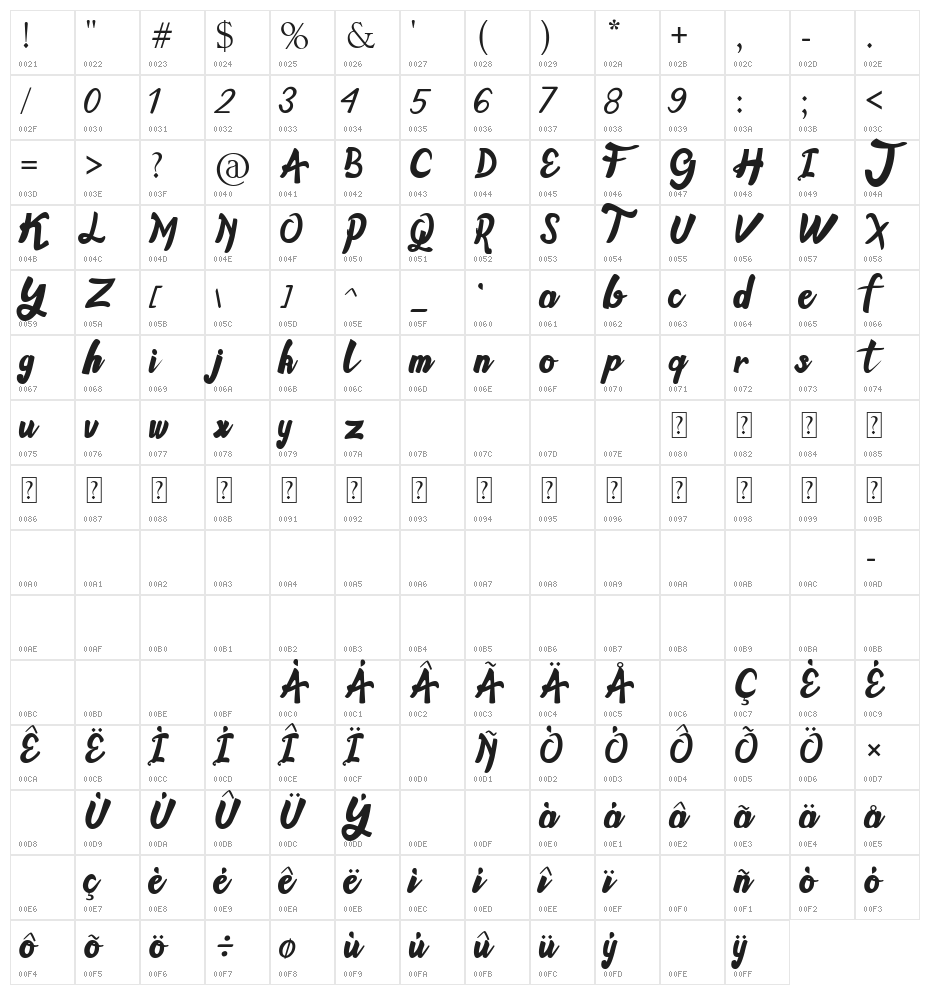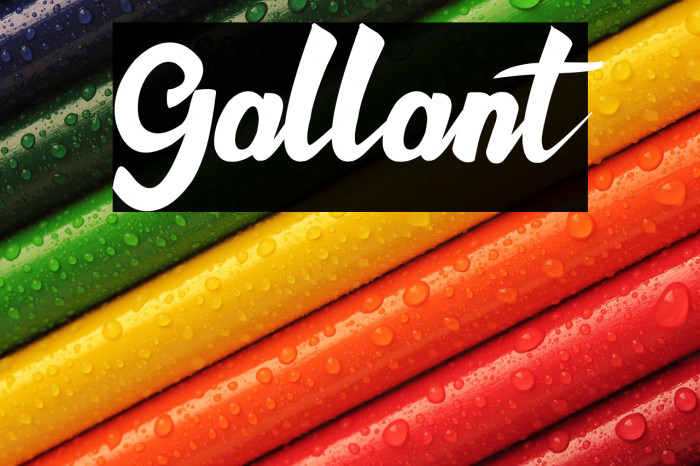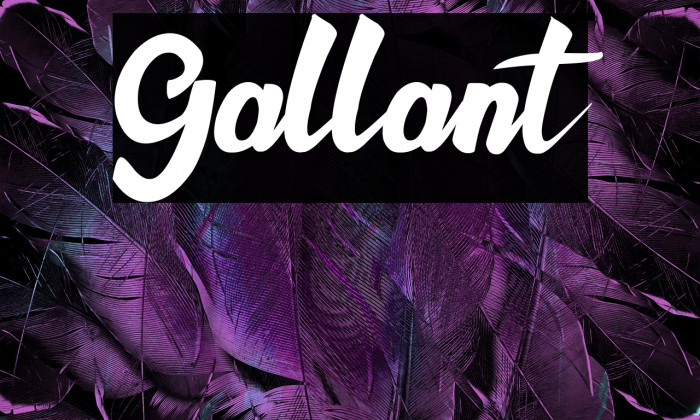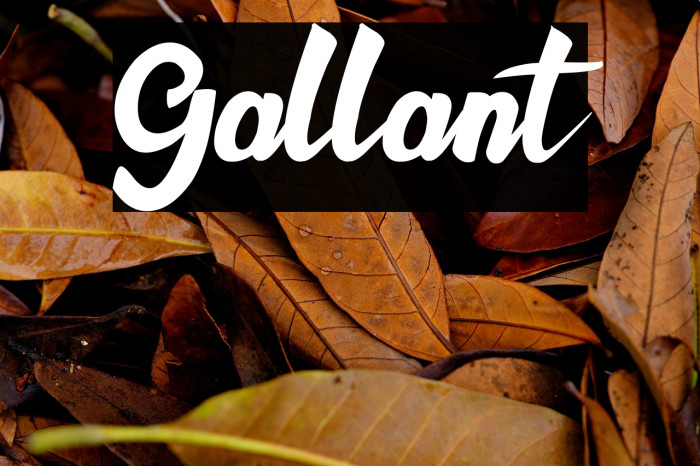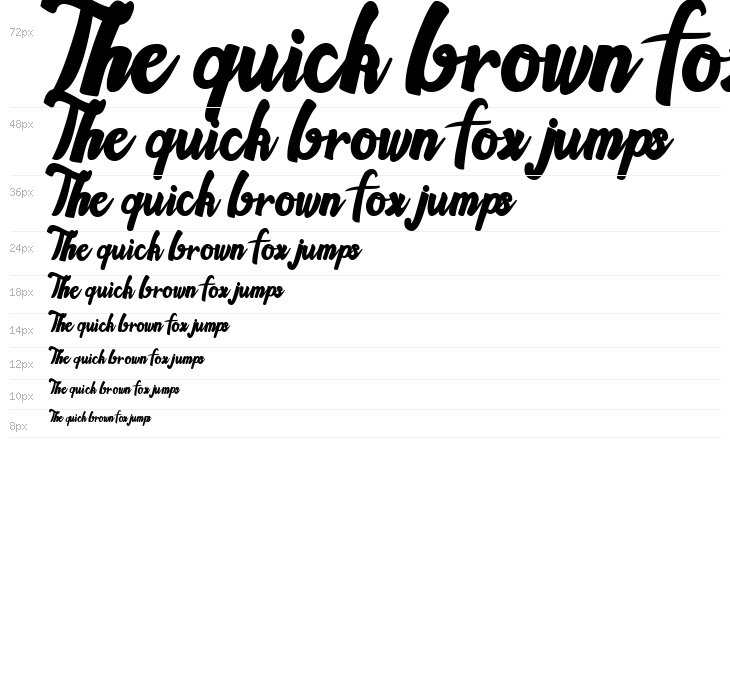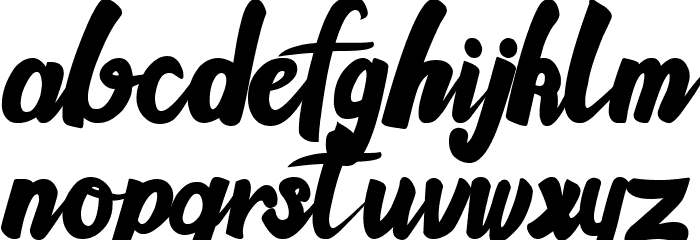
Gallant Font
Gallant Description
This font features a bold and dynamic script style, characterized by its flowing, cursive letters that convey a sense of elegance and movement. The uppercase letters are slightly more structured, maintaining a balance between formality and flair, while the lowercase letters exhibit a more casual and fluid appearance. The numerals are consistent with the overall style, offering a cohesive look. Special characters are designed with the same attention to detail, ensuring they integrate seamlessly with the rest of the typeface. This font's bold strokes and smooth curves make it ideal for creating a strong visual impact.
| Proposed Projects | Ideal for branding, invitations, signage, and any project requiring a touch of elegance and flair. |